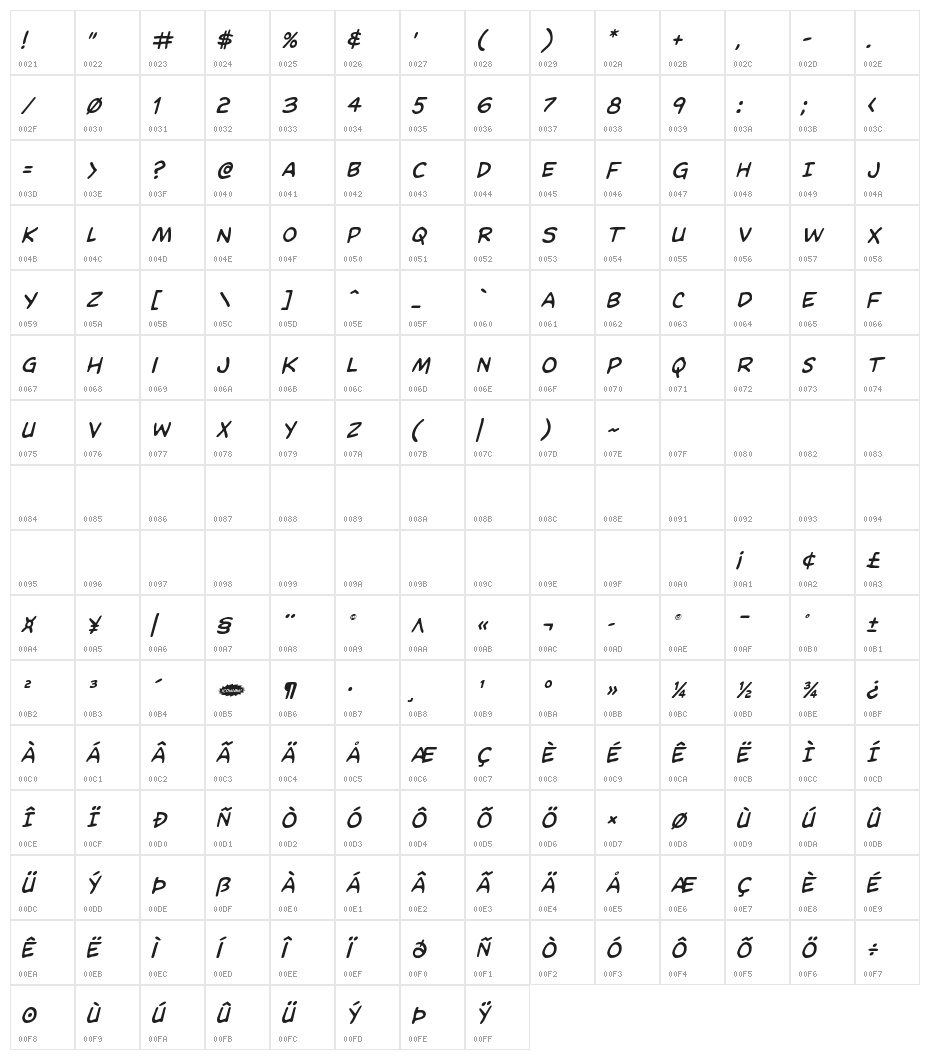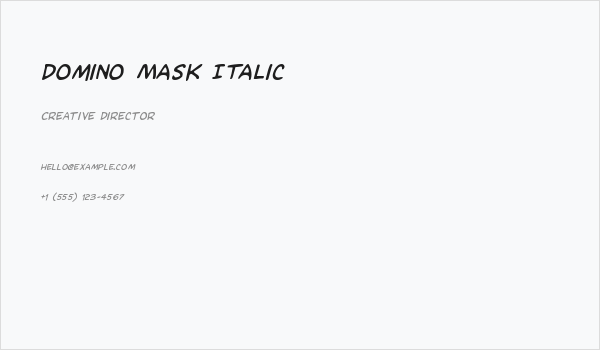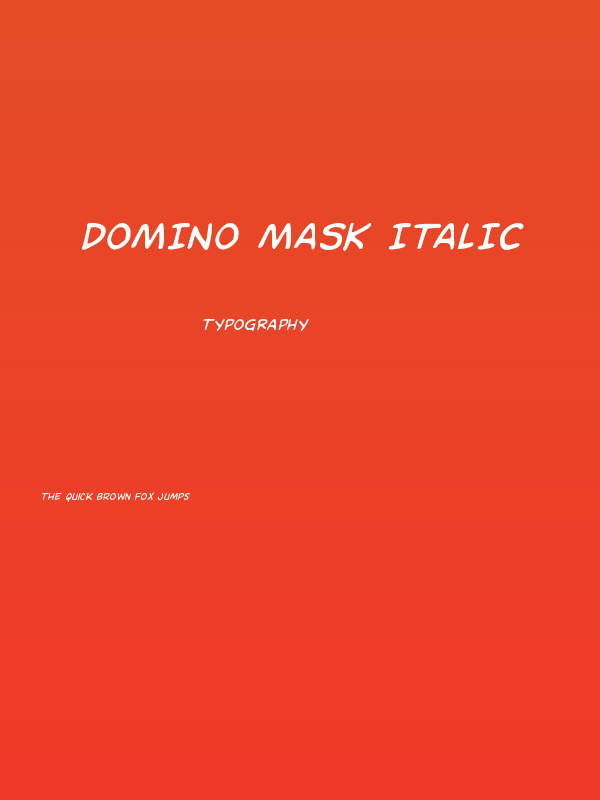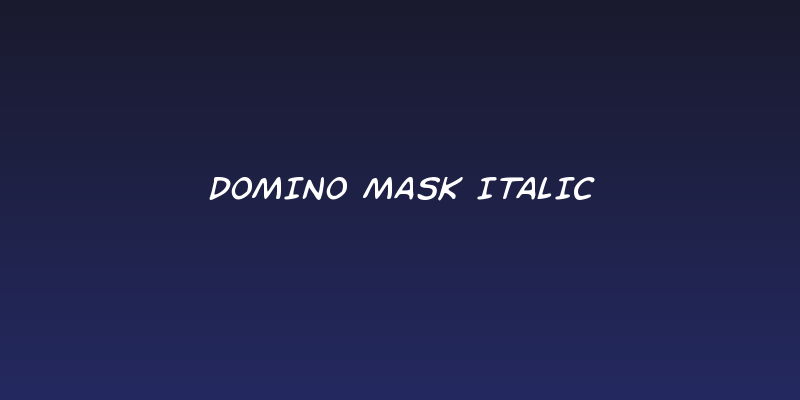
Domino Mask Italic Font
Domino Mask Italic Description
This font features a playful and dynamic style with a handwritten appearance. The characters are slightly slanted, giving it an italicized look that adds a sense of movement and energy. The strokes are smooth and rounded, providing a friendly and approachable feel. The uppercase and lowercase letters maintain a consistent style, with a moderate thickness that ensures readability. The numerals and special characters are designed to match the overall aesthetic, making it versatile for various uses.
| Proposed Projects | Ideal for creative projects such as greeting cards, invitations, posters, and branding materials that require a personal touch. |